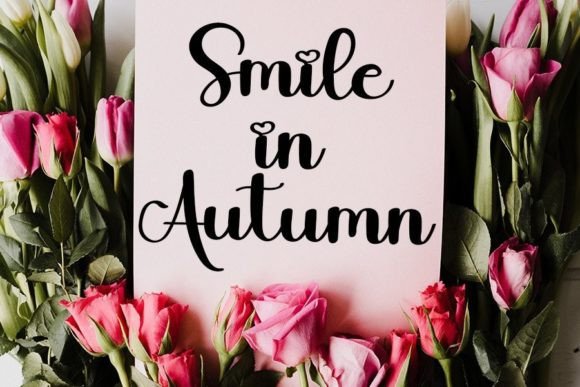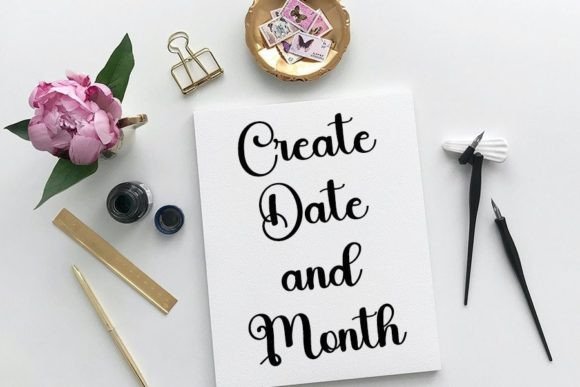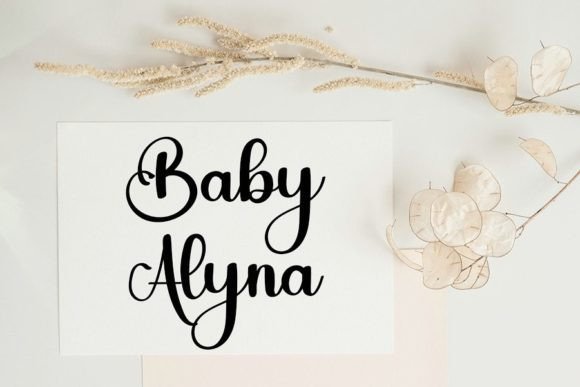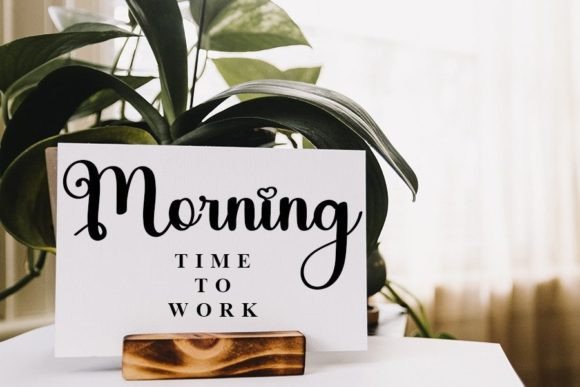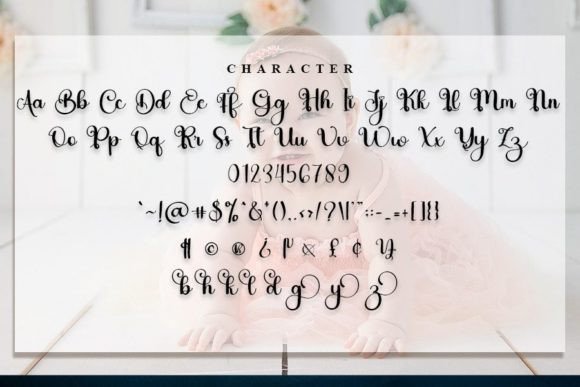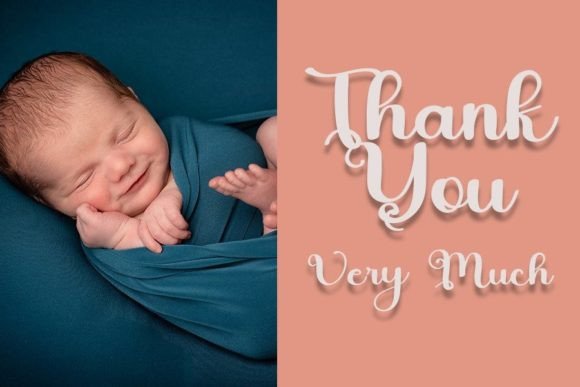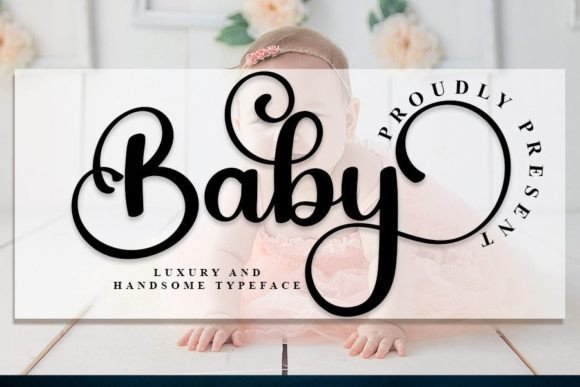
Baby Font: The Ultimate Choice for Elegant and Modern Designs
In the world of typography, a font can make or break a design. For designers and crafters looking for a touch of elegance and sophistication, Baby Font is an excellent choice. This beautiful and refined handwritten font is perfect for a wide range of applications, from logos and branding to invitations, stationery, wedding designs, and social media posts.
What Makes Baby Font So Special?
Baby Font stands out from the crowd with its classy and modern aesthetic. Its elegant strokes and refined lettering make it an ideal choice for designers who want to add a touch of sophistication to their work. Whether you’re creating a logo, invitation, or social media post, Baby Font is sure to impress.
PUA Encoding: Easy Access to Glyphs and Ligatures
One of the best features of Baby Font is its PUA (Private Use Area) encoding. This means that you can access all of the amazing glyphs and ligatures with ease, giving you even more creative freedom. With PUA encoding, you can easily insert special characters, such as flourishes and swashes, to add an extra touch of elegance to your designs.
Baby Font is incredibly versatile and can be used for a wide range of applications, including:
- Logos and Branding: Create a lasting impression with a custom logo that exudes elegance and sophistication.
- Invitations and Stationery: Add a touch of refinement to your invitations, greeting cards, and stationery.
- Wedding Designs: Make your wedding designs truly unforgettable with Baby Font’s elegant and romantic aesthetic.
- Social Media Posts: Elevate your social media posts with a font that’s sure to grab attention.
Why Choose Baby Font?
With so many fonts to choose from, why should you choose Baby Font? Here are just a few reasons:
- Unique and Elegant: Baby Font is a one-of-a-kind font that’s sure to set your designs apart.
- Highly Versatile: Use Baby Font for a wide range of applications, from logos to social media posts.
- Modern and Sophisticated: Baby Font is perfect for designers who want to create modern and sophisticated designs.
Tips for Using Baby Font
Here are a few tips for getting the most out of Baby Font:
- Experiment with Different Sizes: Baby Font looks great in a variety of sizes, from large headings to smaller body text.
- Pair with Other Fonts: Try pairing Baby Font with other fonts to create a unique and interesting contrast.
In conclusion, Baby Font is a beautiful and refined handwritten font that’s perfect for designers and crafters looking for a touch of elegance and sophistication. With its PUA encoding, versatility, and modern aesthetic, Baby Font is an excellent choice for a wide range of applications. Whether you’re creating a logo, invitation, or social media post, Baby Font is sure to impress.